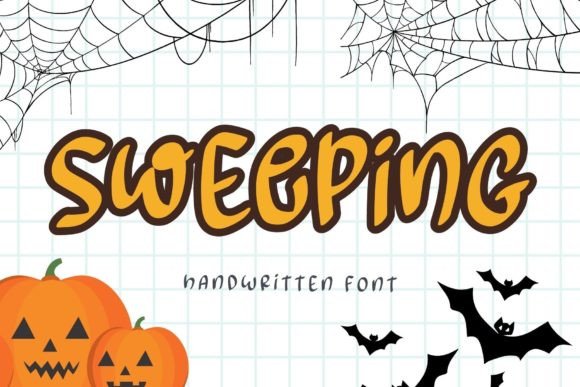
Feast your eyes upon the enchanting Sweeping Font, a breathtaking masterpiece from the Brown Cupple Fonts foundry. This captivating handwritten font is a symphony of playfulness and authenticity, radiating an aura of warmth and charm. Its graceful curves and organic flow evoke a sense of genuine human connection, making it the perfect choice to add a touch of heartfelt elegance to your creative endeavors.
Immerse yourself in the versatility of Sweeping Font. Its diverse range of applications knows no bounds, from crafting heartfelt blog posts that resonate with your audience to designing logos that leave a lasting impression. Elevate your branding with a distinctive touch, ensuring your business stands out from the crowd. Create eye-catching ads that capture attention and drive conversions, leaving your customers eager for more.
Step into the realm of special occasions, where Sweeping Font truly shines. Its delicate strokes and elegant charm make it the ideal companion for wedding invitations that exude romance and sophistication. Design greeting cards that convey heartfelt emotions and create planners that inspire creativity and organization. Embark on a journey of visual storytelling as you craft photo albums that capture life's precious moments, transforming them into cherished keepsakes.
Unleash your inner artist and let your imagination run wild with Sweeping Font. Its playful nature lends itself perfectly to decorations that add a touch of whimsy and delight to any space. Create unique and personalized gifts that showcase your thoughtfulness and care, leaving a lasting impression on your loved ones.
Experience the transformative power of Sweeping Font. Its ability to seamlessly blend playfulness and authenticity is sure to captivate your audience, leaving them enchanted by your creations. Don't miss out on the opportunity to own this remarkable font and elevate your creative projects to new heights. Embrace the beauty of Sweeping Font today and embark on a journey of artistic expression that knows no limits.